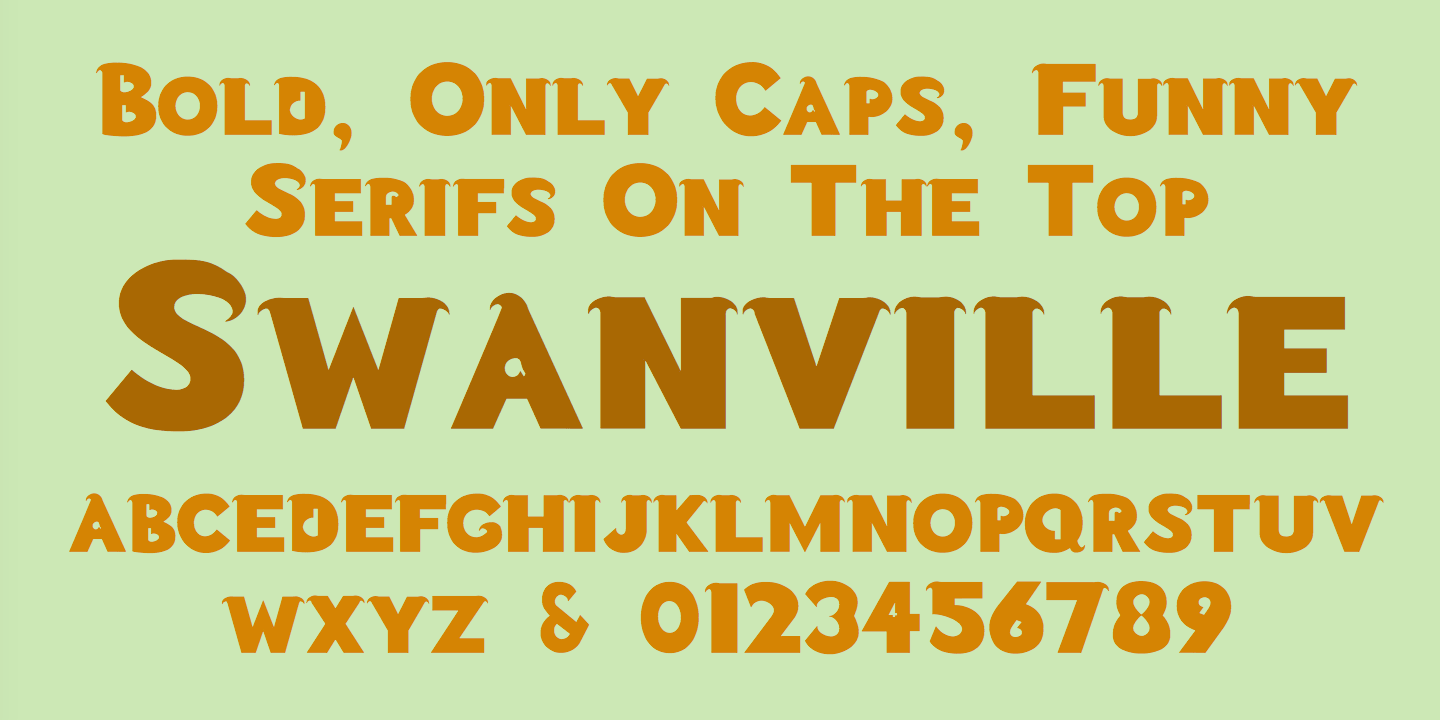
Swanville
Designed by Robert Schenk, Swanville is a novelty font family. This typeface has two styles and was published by Ingrimayne Type.
Swanville developed as part of a train font that eventually became LetterTrain. The letters of Swanville are bold, have a funny “serif” on the top but not on the bottom, and when the letters have interiors, the interior has the shape of the letter. Lower-case letters are smaller versions of the upper-case letters. Because development of this face stopped long ago, it has a limited character set.